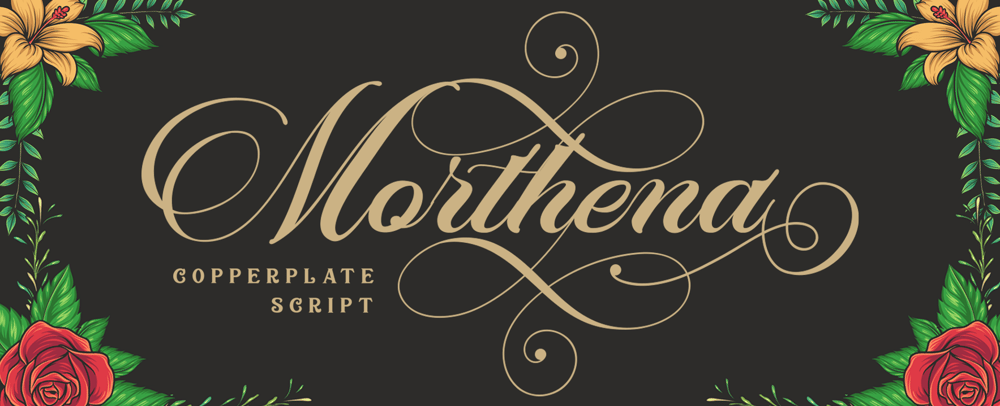
Morthena Font Family was designed by Bangkit Tri Setiadi and published by Blankids. Morthena contains 1 styles and family package options. Hello i came back with a new product, this is Morthena Script, this is a copperplate style font that looks classic, vintage and retro but still looks elegant, luxurious and georgeous. Morthena is a little different from some existing fonts, I made a slightly different shape and added an alternative character with a more decorative shape as well I added 35 different swashes that you can use easily, please see this video how to using this font: https://www.youtube.com/watch?v=mwp1yyOko4s&feature=youtu.be